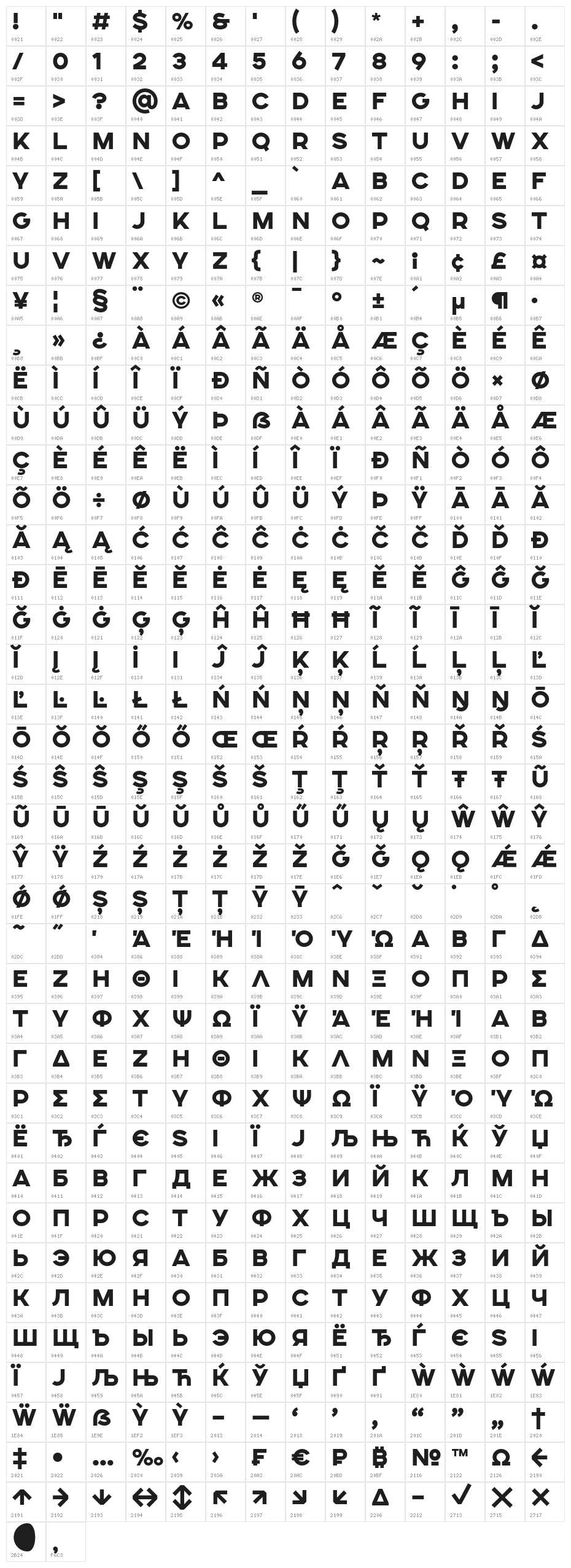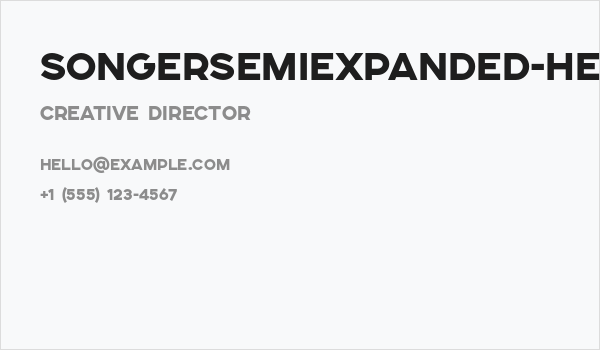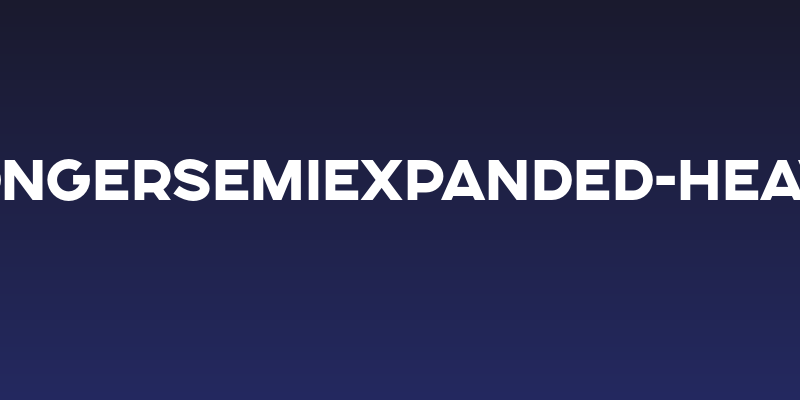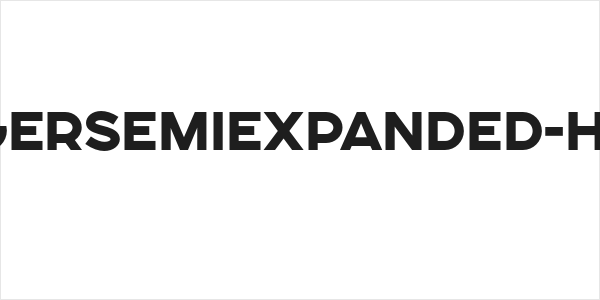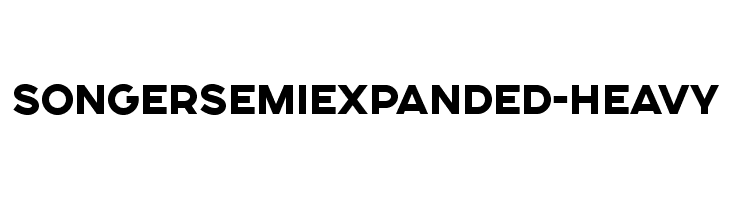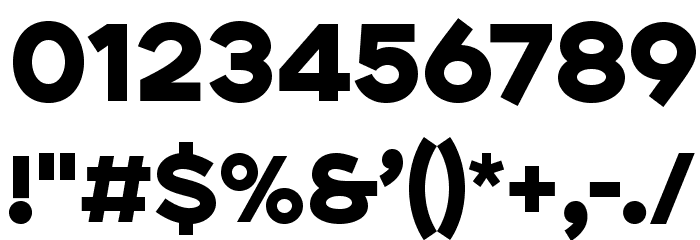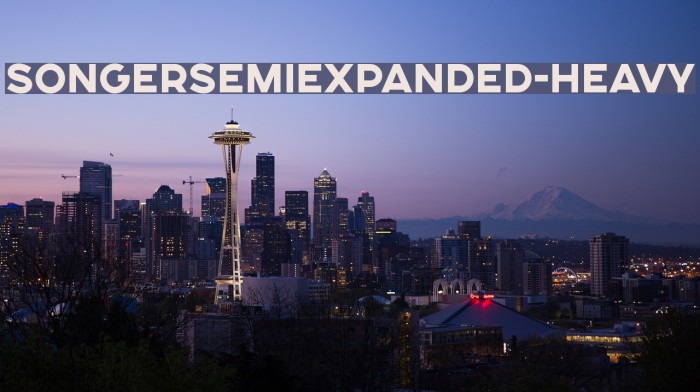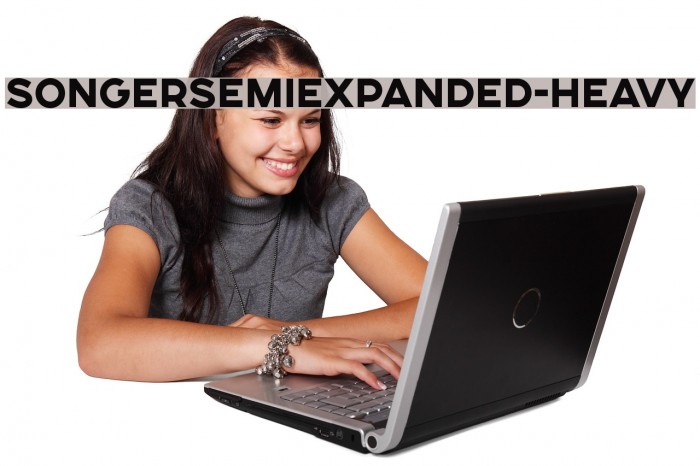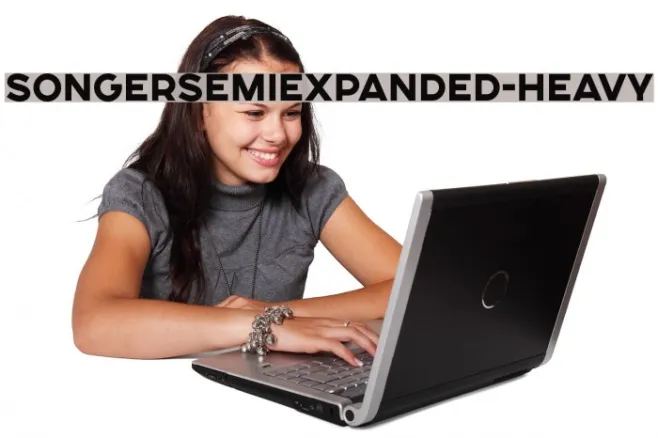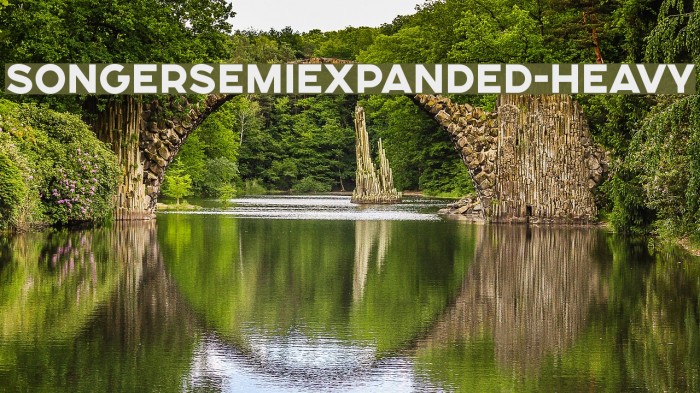
SONGERSemiExpanded-Heavy Font
SONGERSemiExpanded-Heavy Description
This font exhibits a bold and impactful design with a semi-expanded width, making it ideal for attention-grabbing headlines and statements. The characters are crafted with a modern sans-serif style, featuring clean lines and a uniform stroke width that contributes to its strong visual presence. The uppercase and lowercase letters maintain a consistent height and width ratio, ensuring readability and balance. Numerals are equally bold, matching the assertive style of the alphabet. Special characters are included, maintaining the same boldness and clarity, making this font versatile for various applications.
| Proposed Projects | Ideal for branding, advertising, posters, and any project requiring a strong visual impact. |